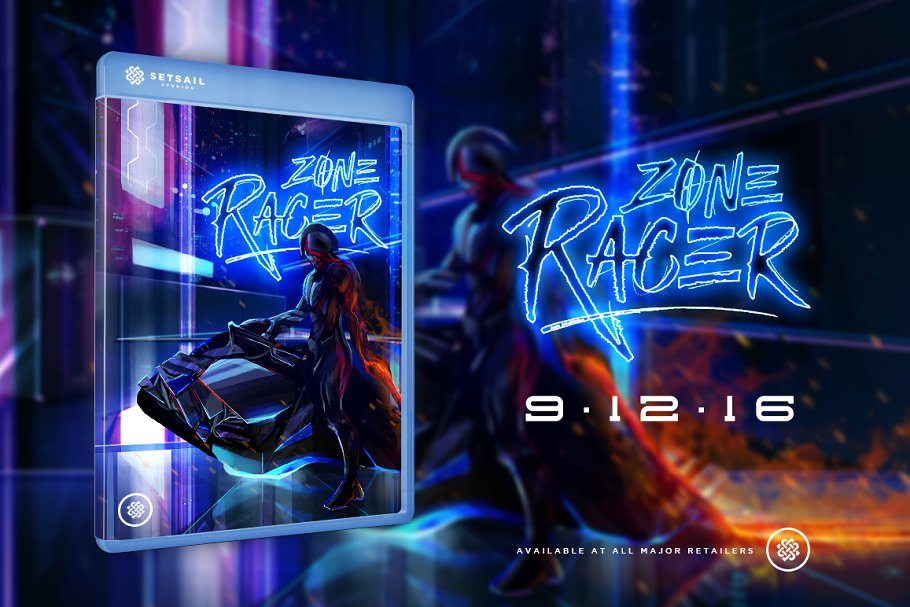
About the Sabotaged + Extras
Introduce a little anarchy into your designs with the Sabotaged font set – not for the faint of heart!Hand-scratched with a custom made cola pen, this font set will tear through your text with unmistakable energy and raw power – perfect for logos, branding & product packaging, and any text which needs a heavy dose of hulk-mode, Sabotaged comes with a full set of upper and lower case characters, with some alternates & ligatures included – giving you the extra freedom to turn your text into authentic custom-made hand lettering
Also included is a bonus extras font, which consists of 26 hand-made ornaments designed to perfectly compliment your primary text, These range from swashes, circles and scratches to arrows, splatters and doodles – and are accessible simply by installing and selecting the separate ‘Sabotaged Extras’ font, then typing any a-z character